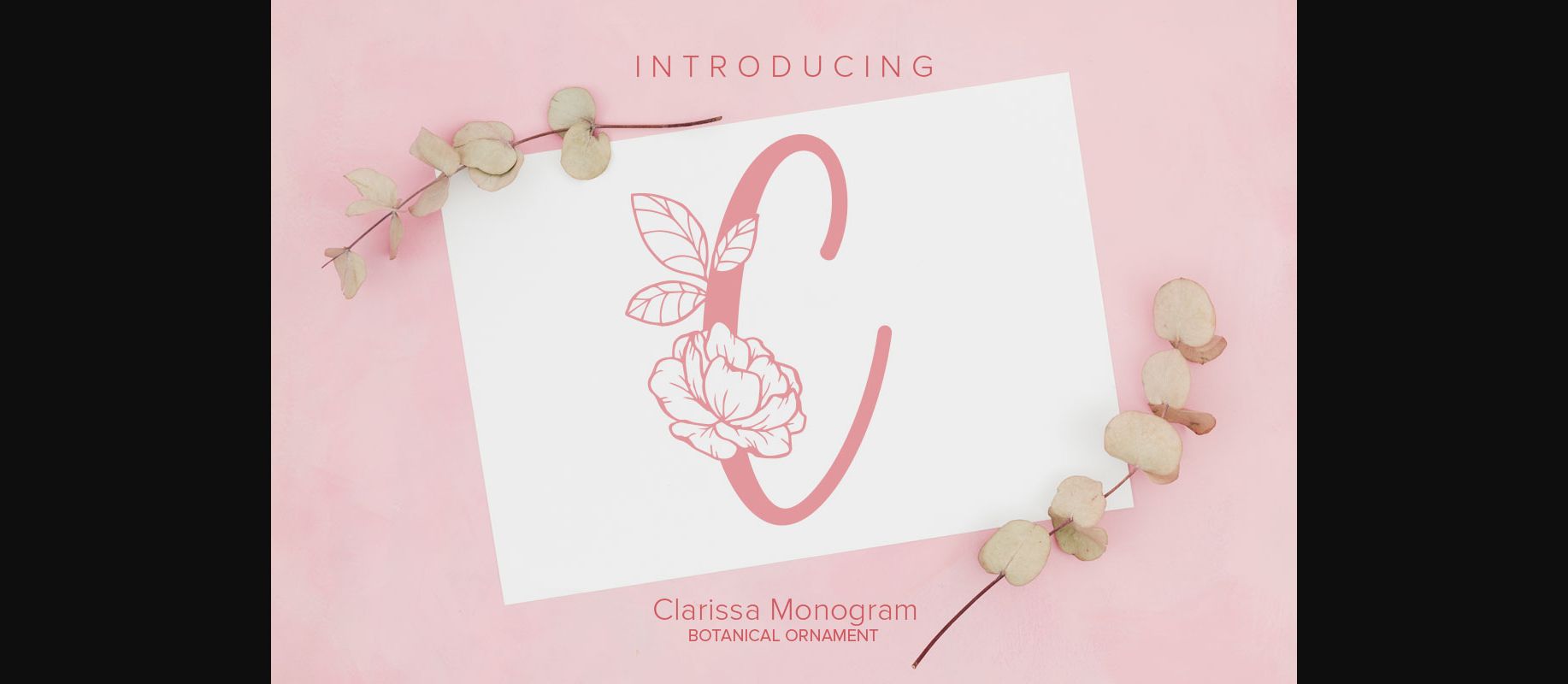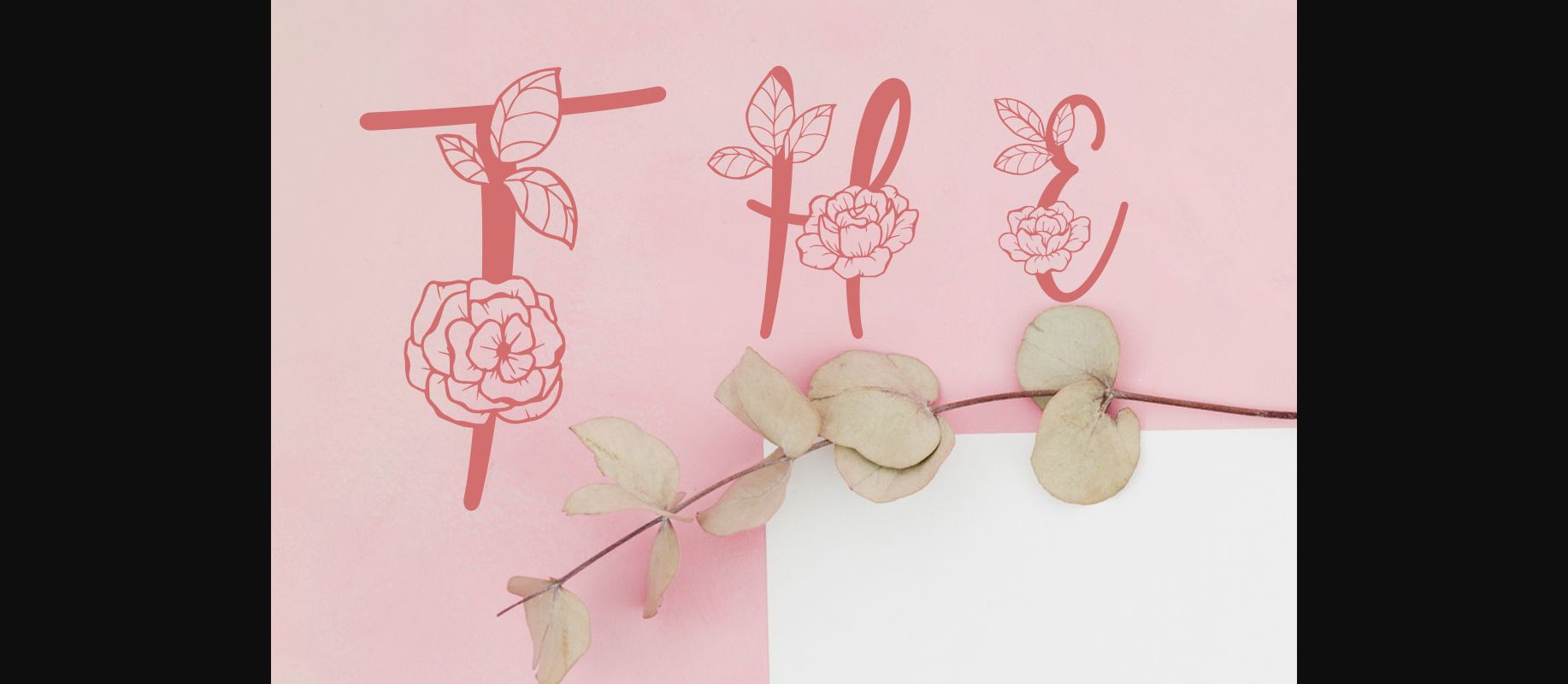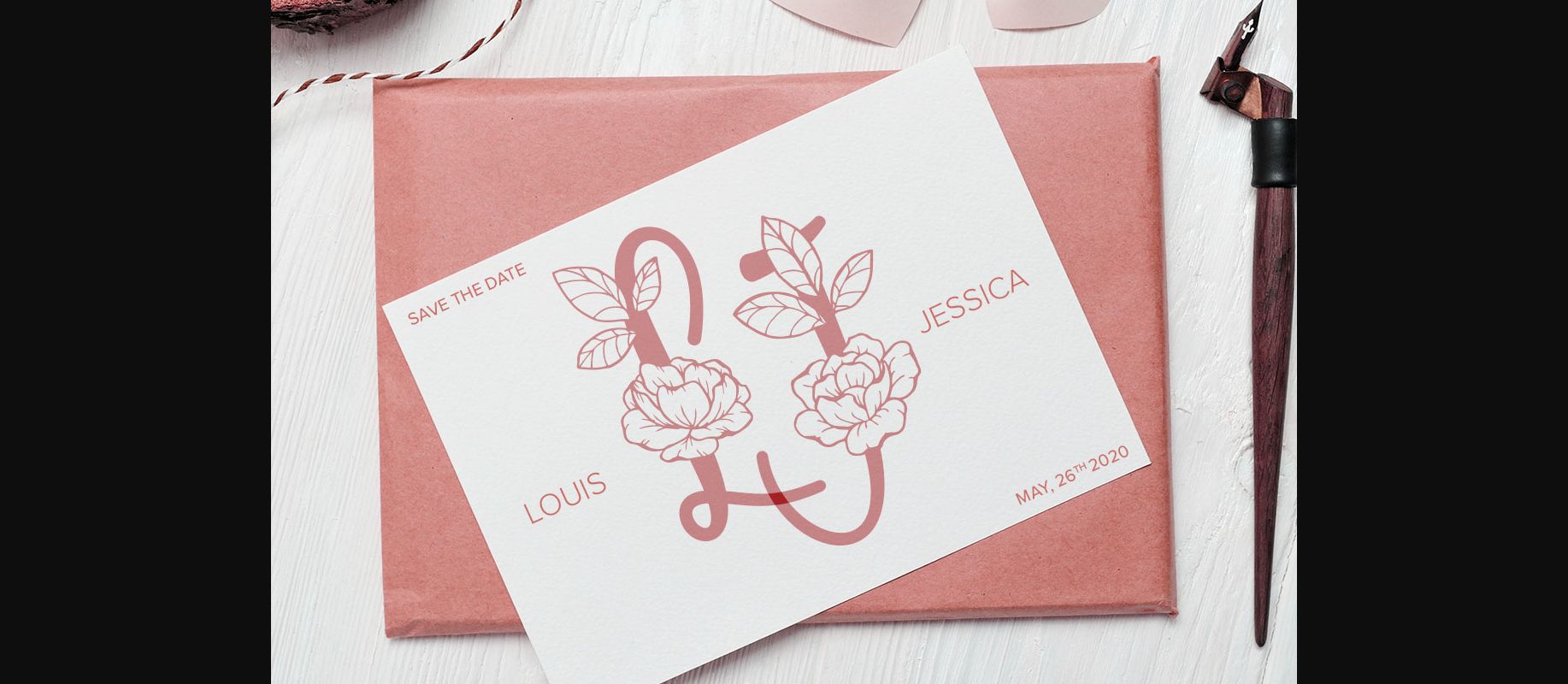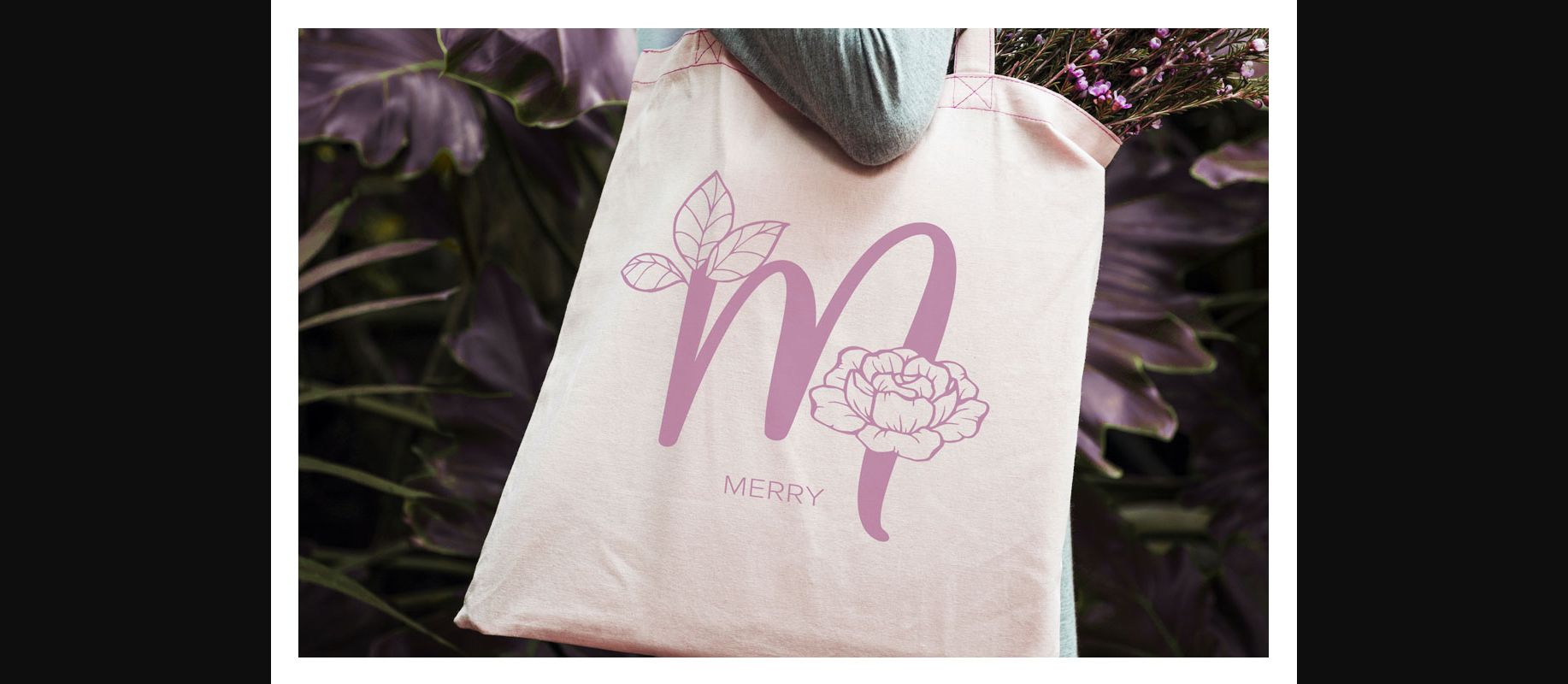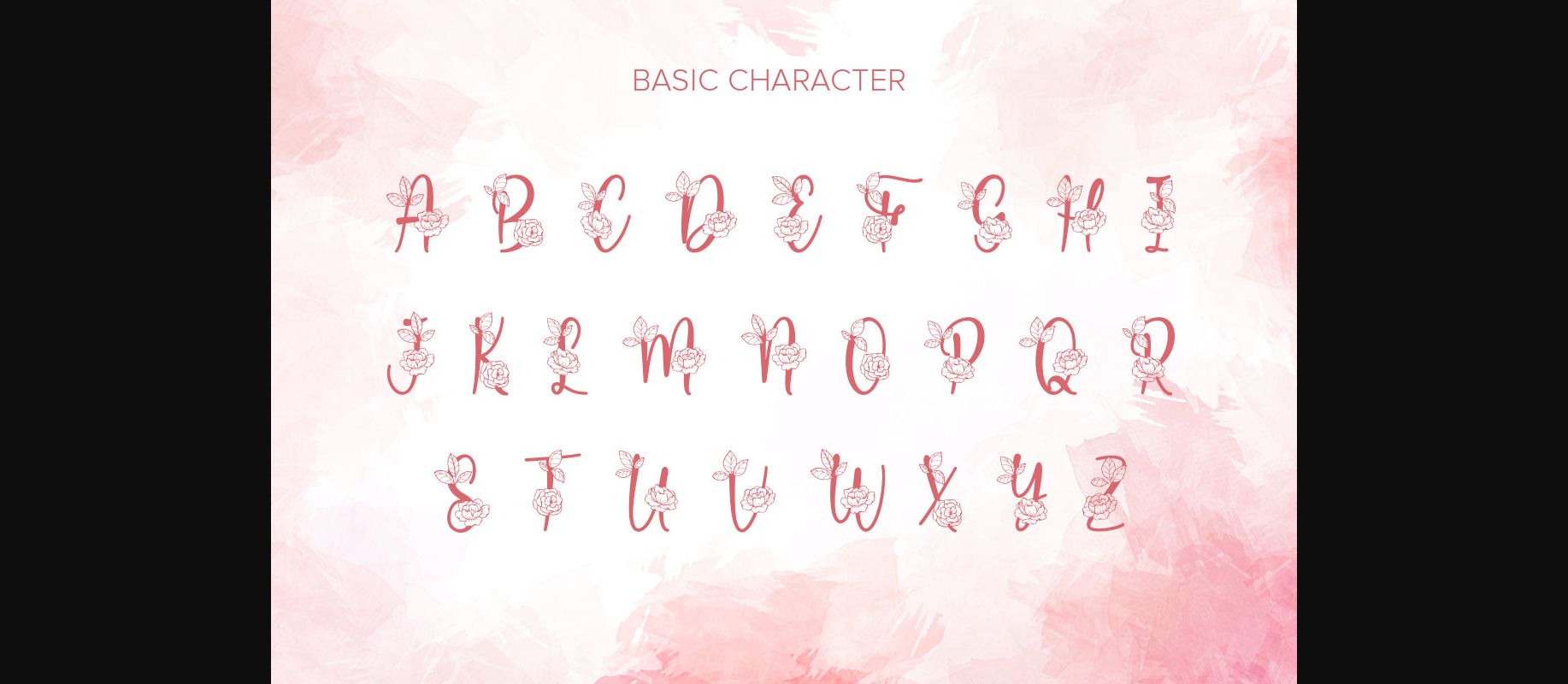
About Clarissa Monogram Font
Clarissa Monogram is a sweet and delicate decorative font. Get creative with its authentic feel and use it to create gorgeous wedding invitations, beautiful stationary art, eye-catching social media posts, and cute greeting cards.